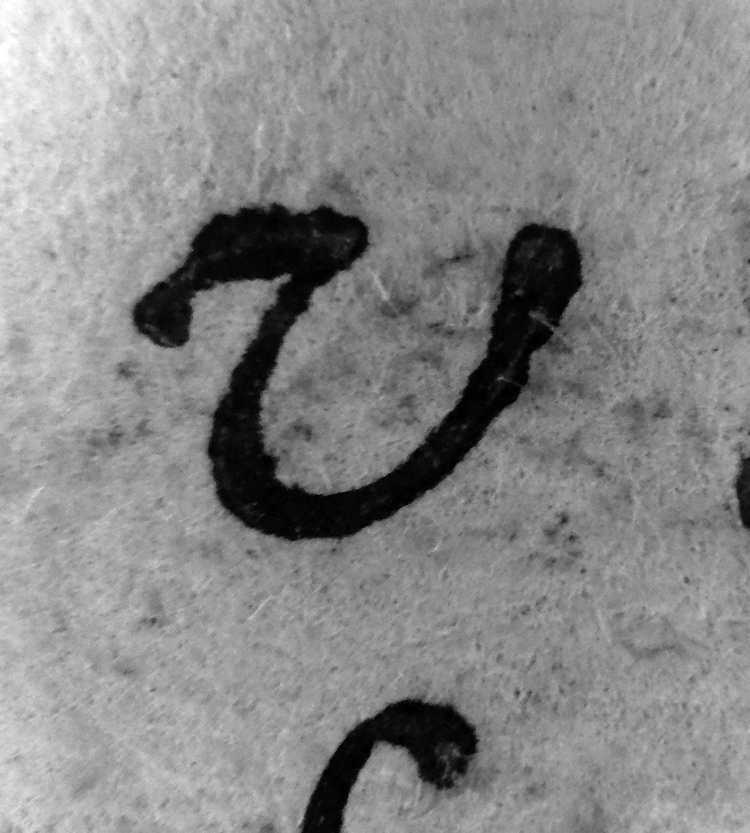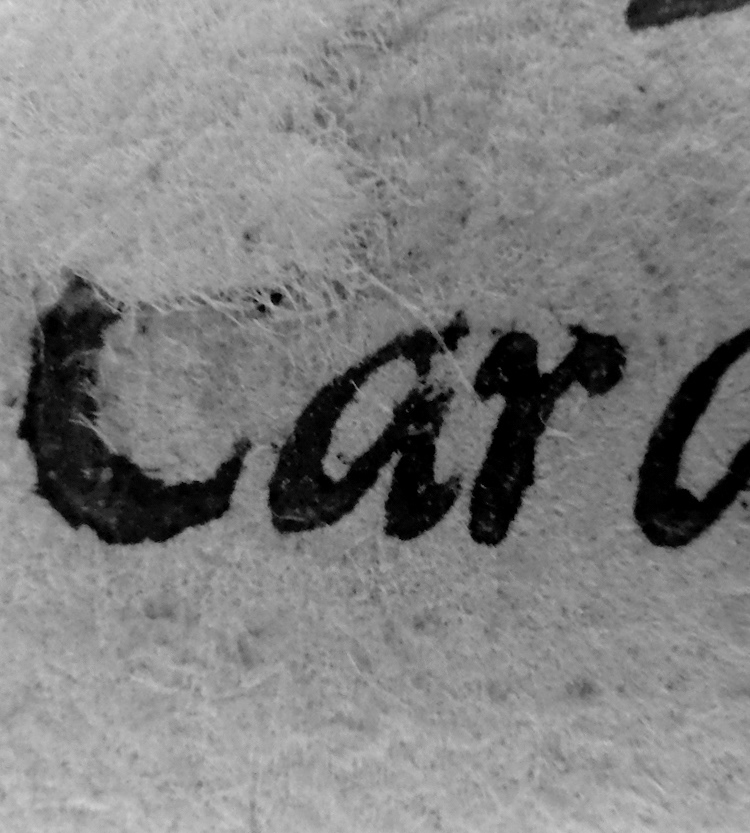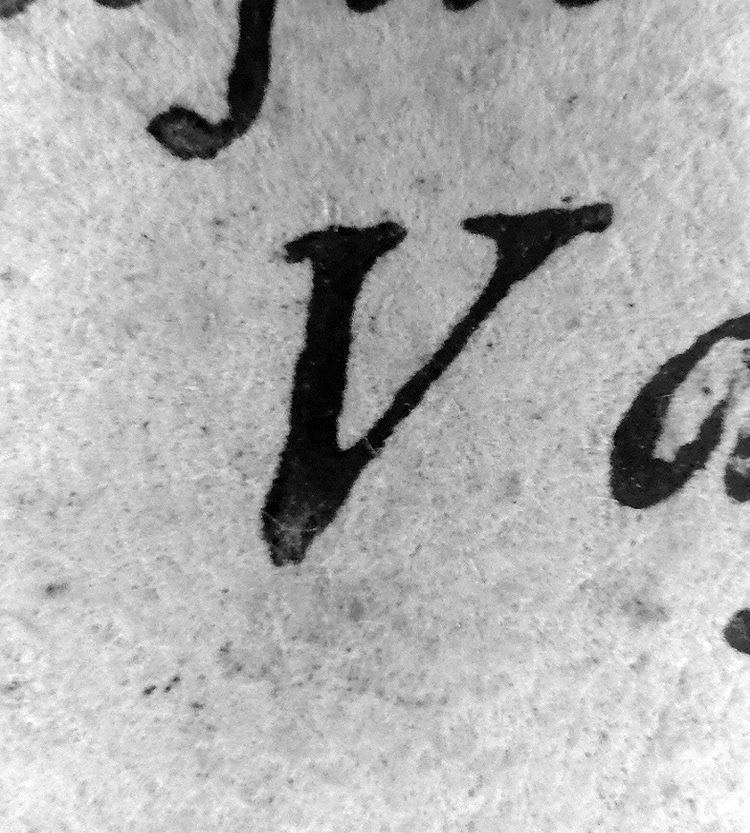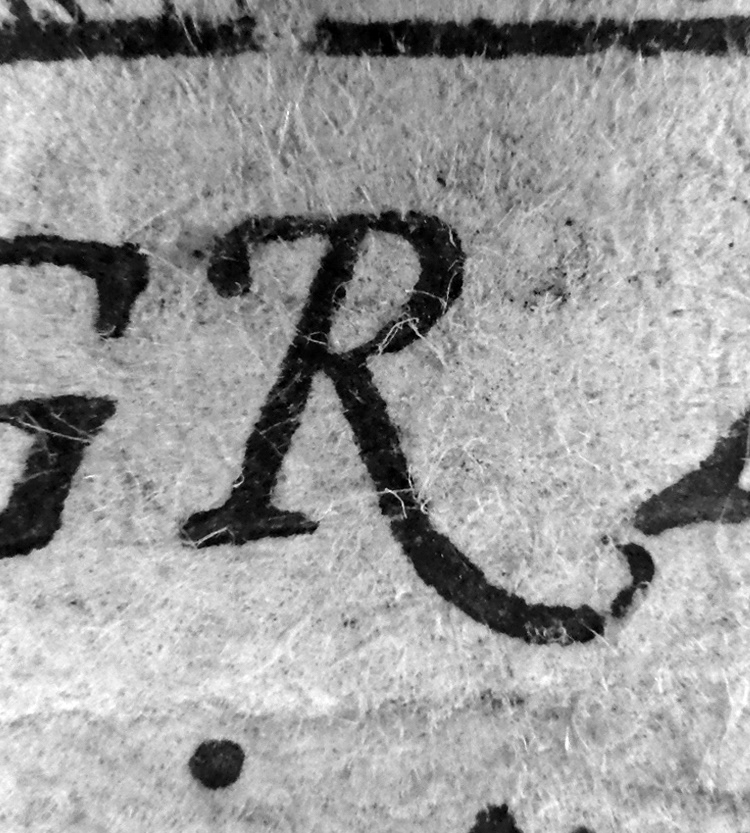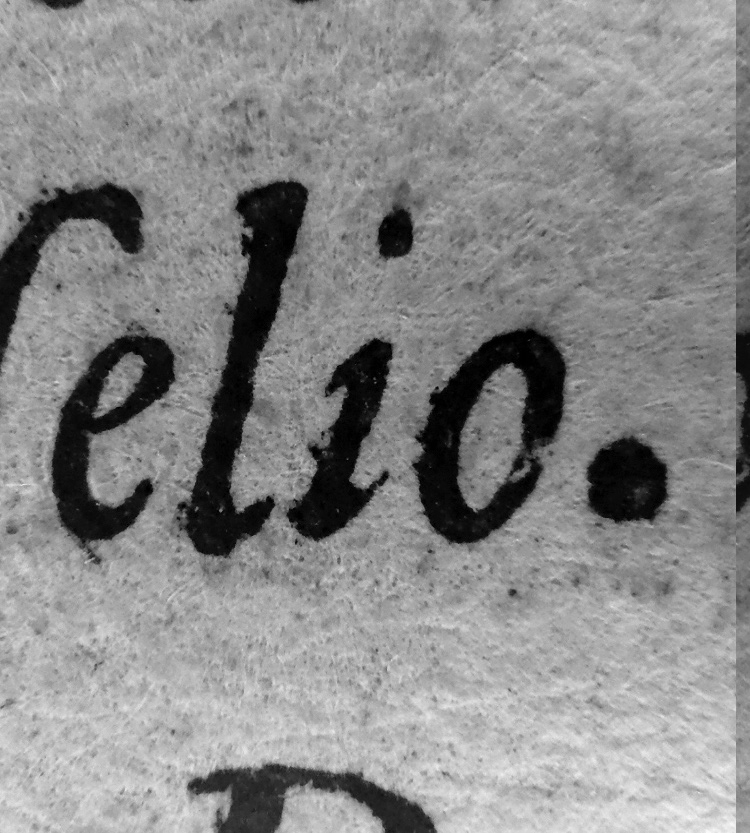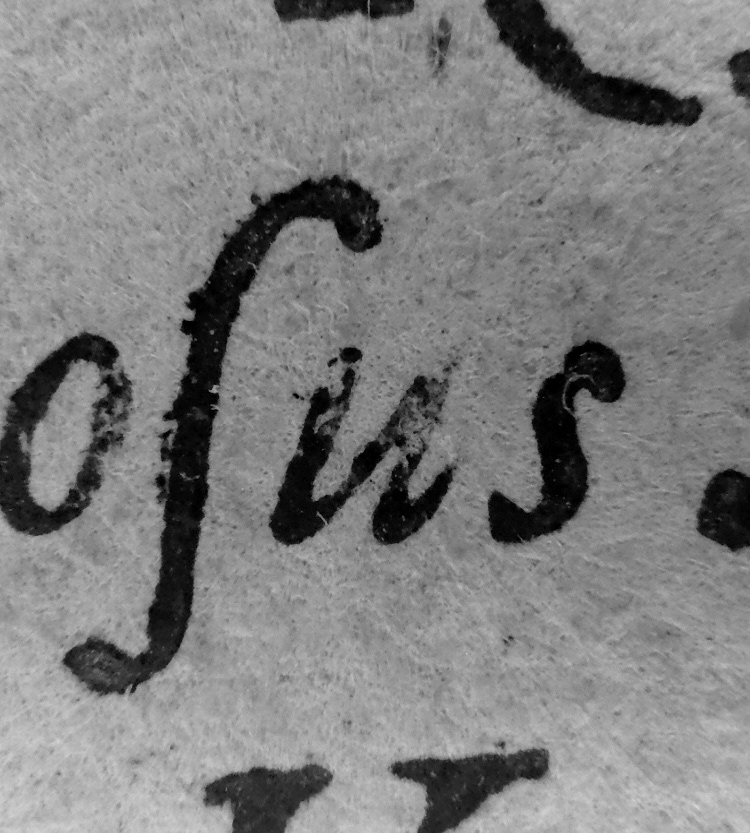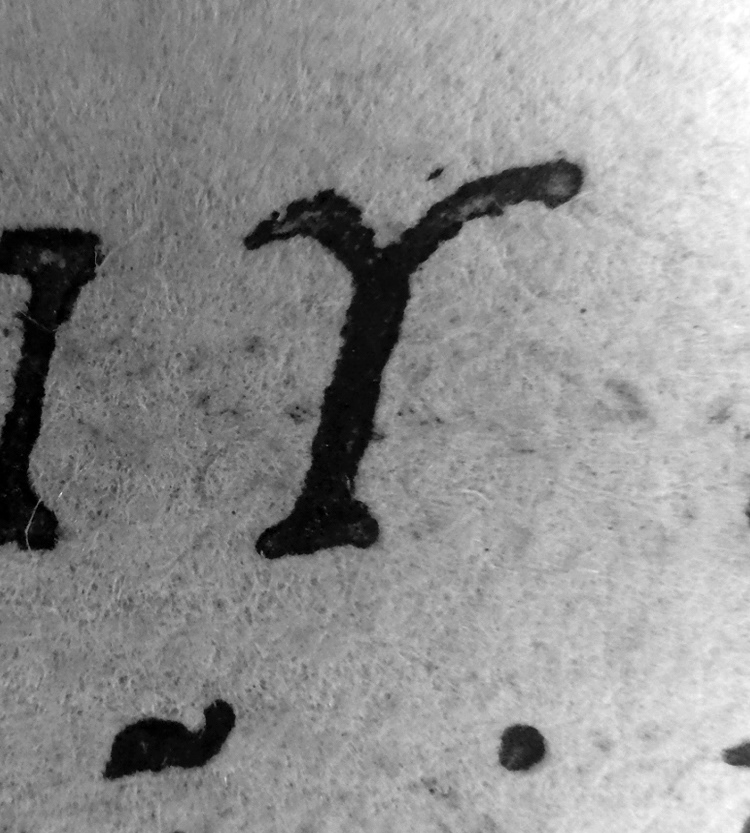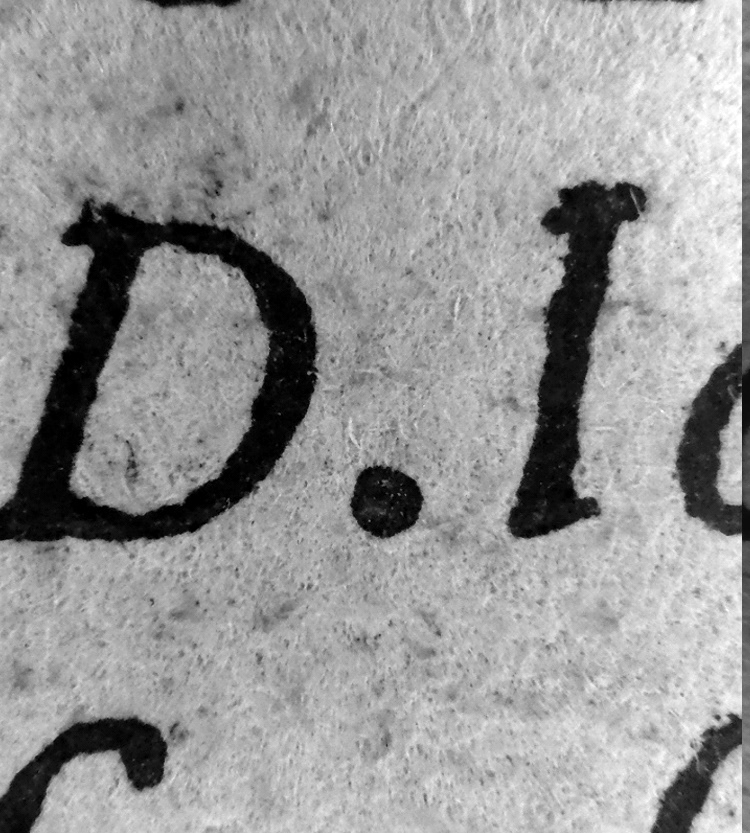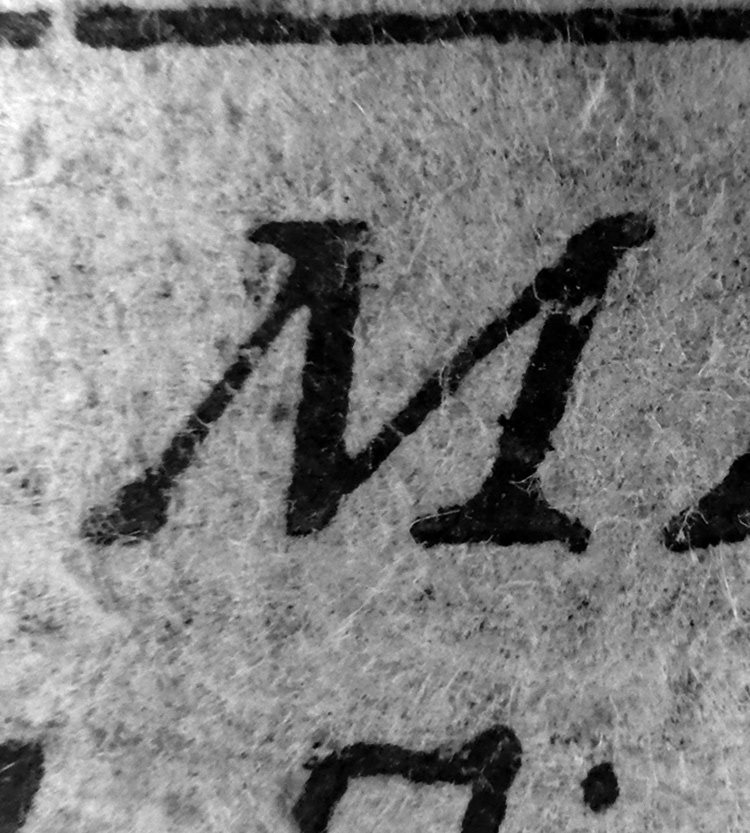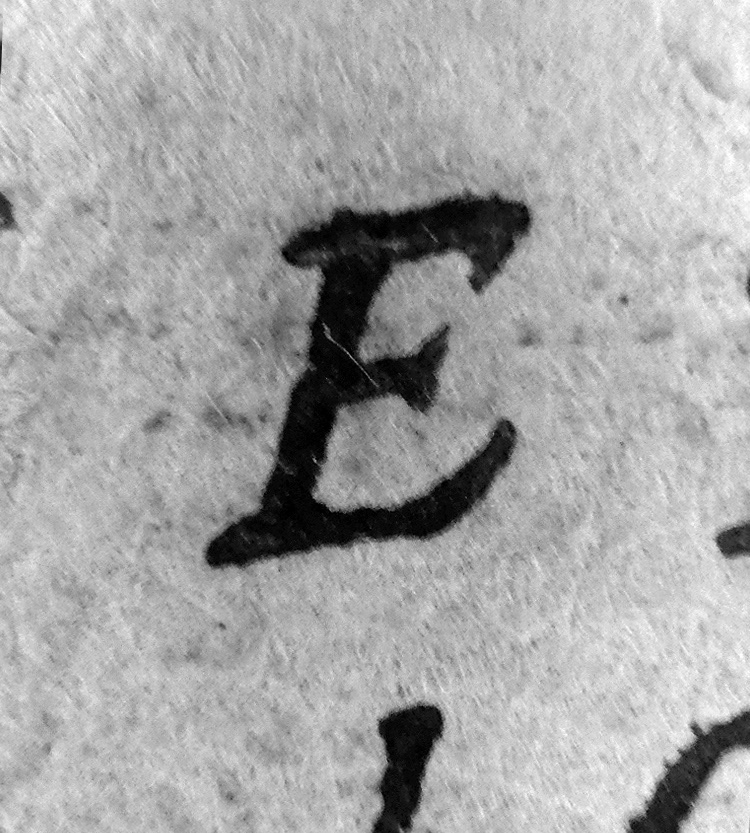
The Grammaticae, printed in Lisbon in 1552, presents 7 sets of alphabets and capitals. Its 231 images will show how subtle the differences were between alphabets.
Bibliographical description:
Author: Jerónimo Cardoso
Editor: not identified
Translator: not identified
Corrector: not identified
Short Title: Grammaticae introductiones breviores et lucidores
Place of Print: Lisbon
Printer/s: [João de Barreira]
Publisher: not identified
Date of Print: 1552
Ownership Marks: non existant
List of Contents: Frontispiece 1r + Authorization ?? + Dedications A(v)/Aij/Aij(v) +
Prima Nominis Declinatio Aiij
Colophon: non existent
Paper: Very thin
Page Size: 8º - cut to 85x130mm
Column Area: very small margins
Printing Area: Dedication: roman 27 lines of text | Other: italic title + 22 lines of text
Quires: 10 - 8 folios - with numbered pages on recto and verso
Signatures: A Aij Aiij Aiiij - K ends on page 158v (+ 1 white sheet)
Guide Letters: non existant
Woodcuts: Yes / borders and illustration on frontispiece
Copperplates: non existant
Illustrations: non existant
Printing Color: Black
Catchwords: Yes / Rare
Marginalia: Yes / manuscripted + underlined text
Interlinear Glosses: Yes / manuscripted
Language/s: Latin + Portuguese
Typefaces: Italic + Roman
Indentation: 5 - 7 mm
Editions: 1552 / under the title Institutiones in Latinam Linguam Breviores, et Lucidiores: 1557 / 1562 / 1566
Italic Alphabet 1# 12pt
Italic Alphabet 2# 12pt
Italic Alphabet 14pt
Roman Alphabet 12pt
Roman Alphabet 16pt
Roman Capitals 24pt
Roman Capital 72pt